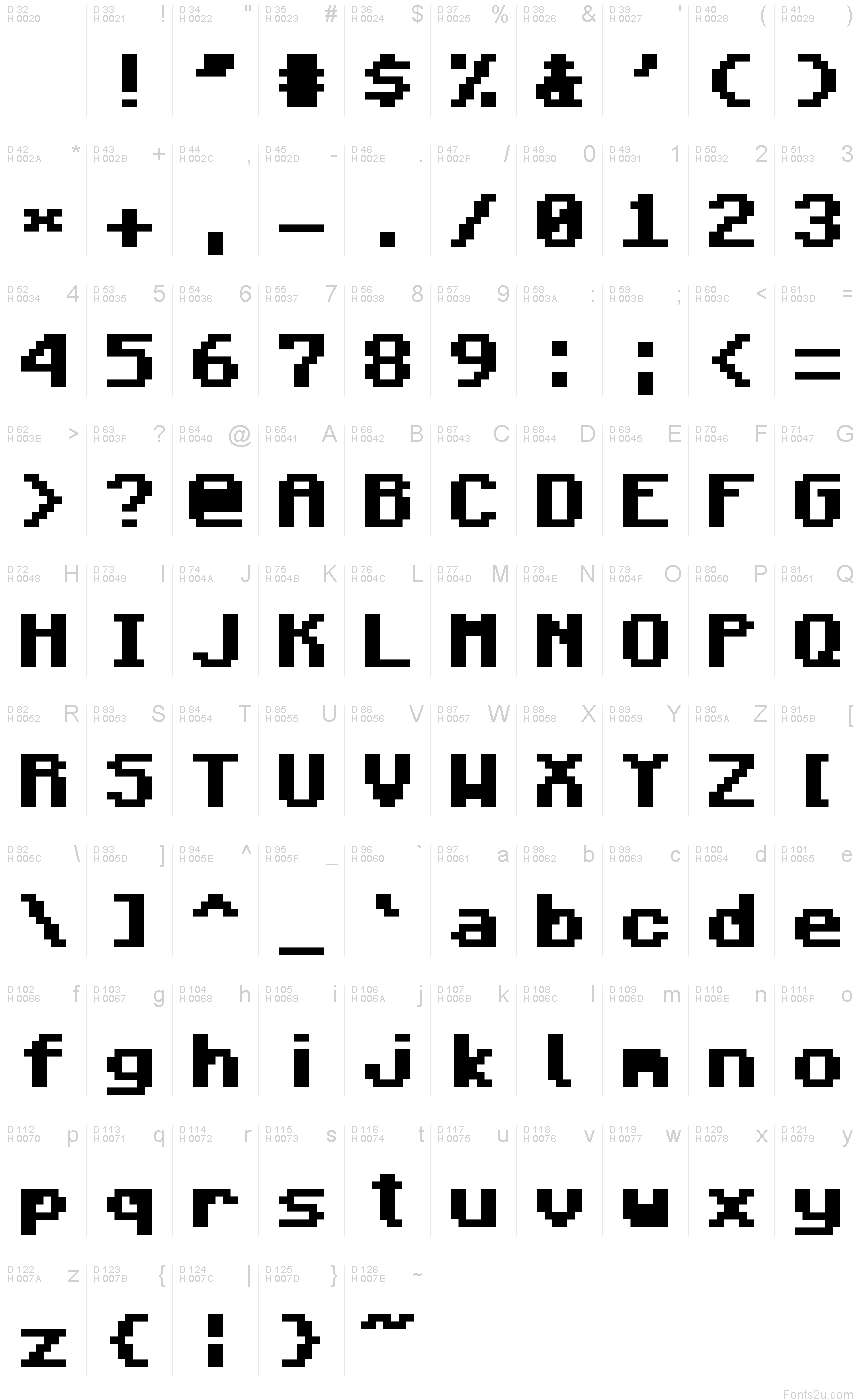
Mojang Bold by B. Tenthousand is a free heavy pixel font with the blunt proportions of an early game title screen. Its letters are broad and tightly spaced, with squared openings and abrupt changes in width that make the forms feel sturdy. Deep notches and tall interior gaps give the lettering a rough mechanical profile.
A game logo is the clearest fit for this forceful style, followed by streaming graphics and arcade event posters. It also suits playful merchandise with a retro digital theme. In magazine layouts about gaming culture, the lettering can become a title treatment that echoes the chunky interfaces and hardware imagery covered on the page.
It contains 204 characters. Notch of Mojang AB created the original font for Minecraft; I converted it, b.tenthousand.